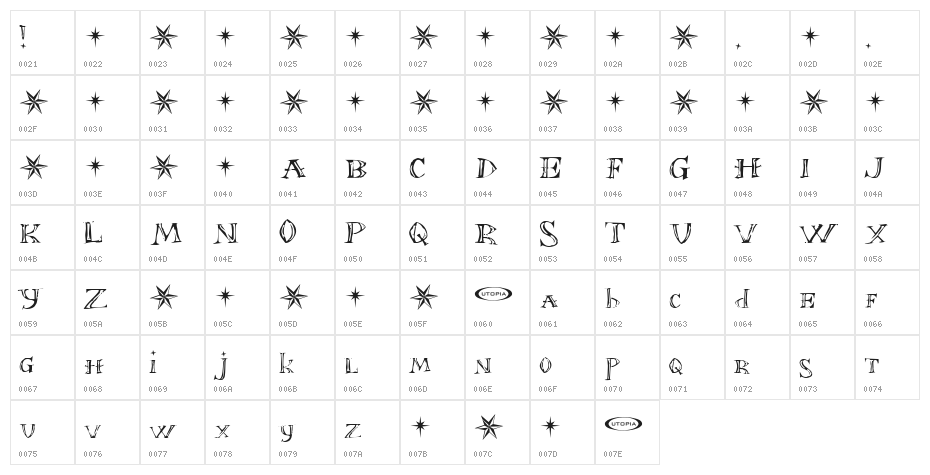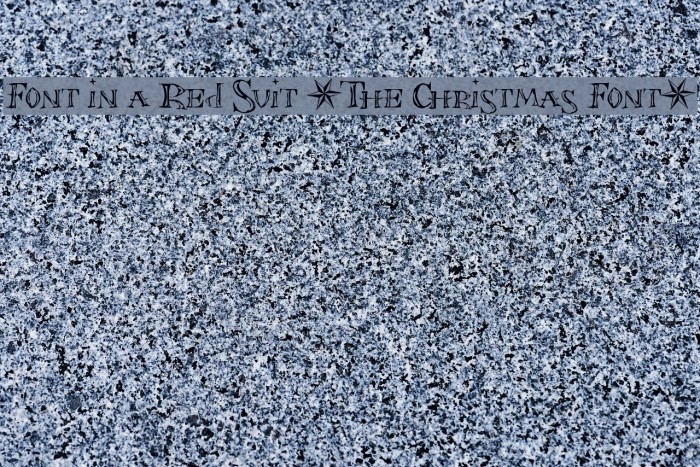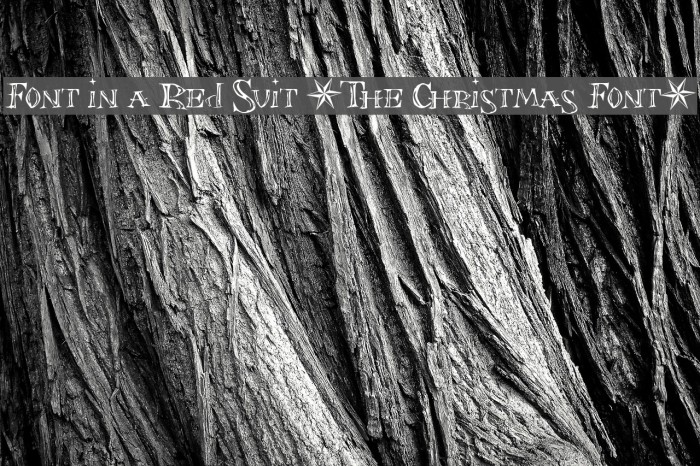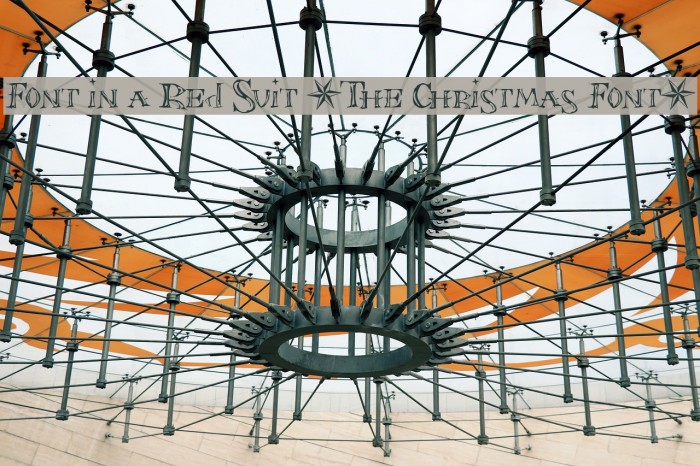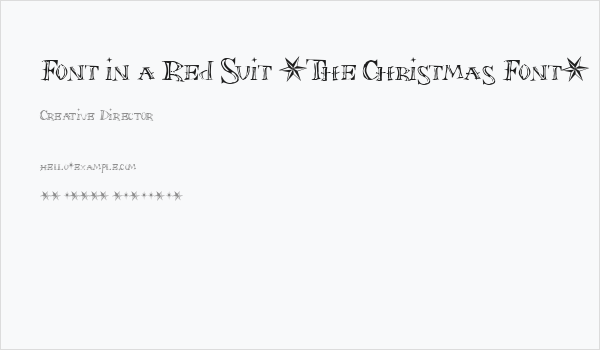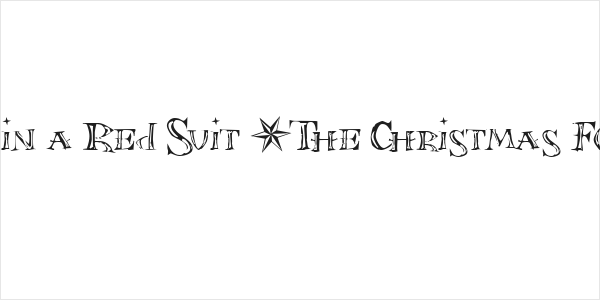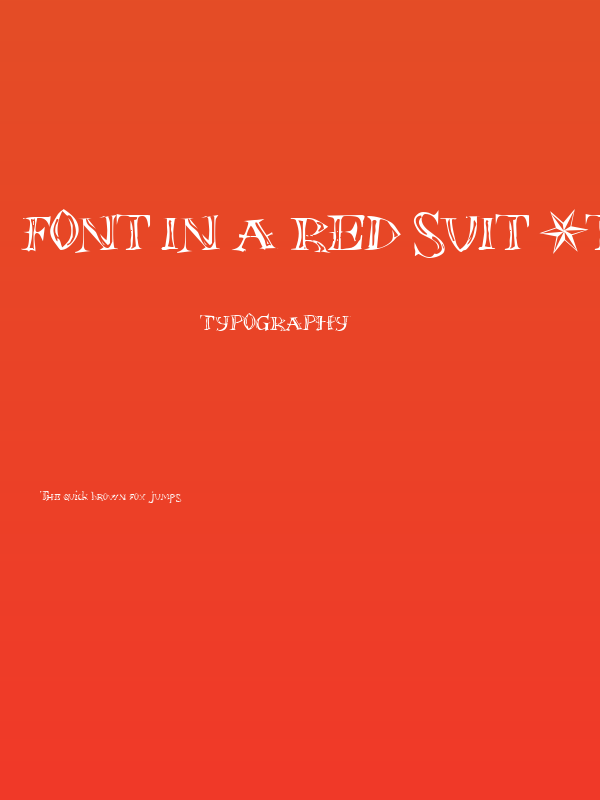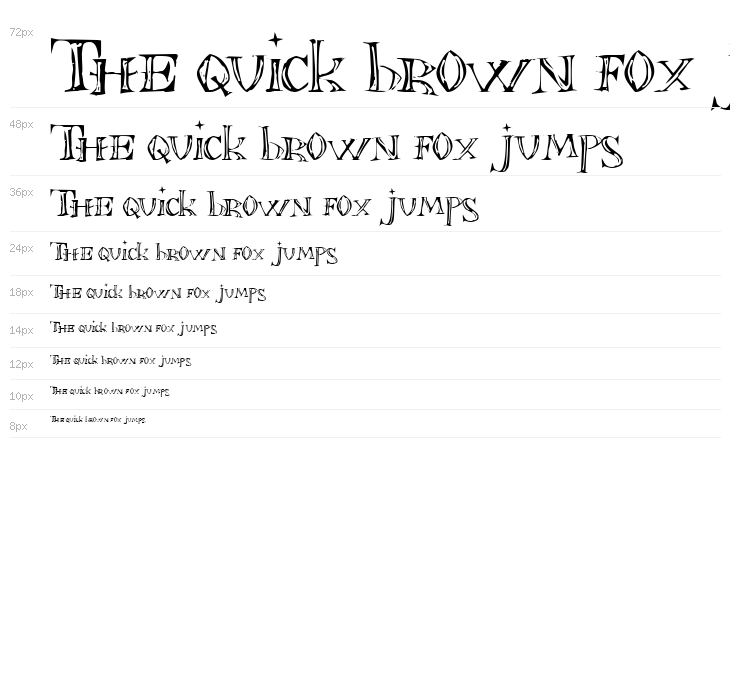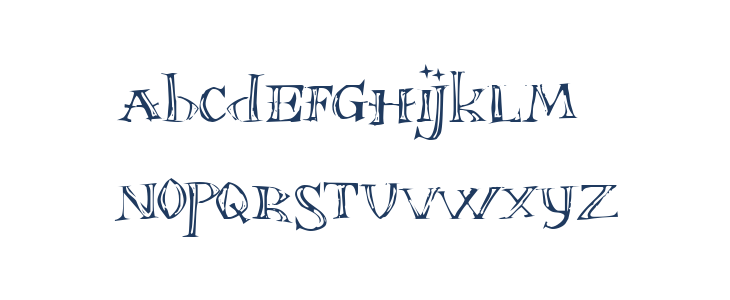
Font in a Red Suit [The Christmas Font] Font
Font in a Red Suit [The Christmas Font] Description
This font features a whimsical and festive design, perfect for holiday-themed projects. The letters are adorned with star-like embellishments and playful cutouts, giving it a lively and decorative appearance. The uppercase and lowercase characters maintain a consistent style, with sharp angles and unique serifs that add to its charm. The numbers and special characters follow the same decorative theme, making it a cohesive set for creative designs. The overall look is both playful and elegant, capturing the essence of a festive season.
| Proposed Projects | Ideal for holiday cards, festive banners, Christmas-themed posters, and decorative invitations. |